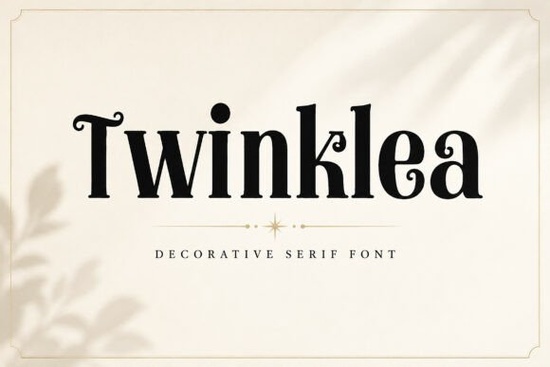
If you're looking for a font that adds a touch of elegance and personality to your designs, Twinklea Font is a great choice. This charming decorative serif font is designed to bring sophistication and creativity to any project, from branding and logos to wedding invitations and social media graphics.
Why Choose Twinklea Font for Your Design Projects?
Twinklea stands out with its graceful curves, playful swashes, and stylish vintage-inspired details. These elements combine to create a timeless aesthetic that feels both modern and classic. Whether you're working on a premium design or a feminine project, Twinklea can help you achieve the perfect balance between elegance and creativity.
Perfect for a Variety of Design Needs
One of the key strengths of Twinklea is its versatility. It works beautifully across a wide range of design applications, including:
- Branding and Logos: Add a unique and memorable touch to your brand identity.
- Packaging Design: Create eye-catching and elegant packaging that stands out.
- Editorial Layouts: Enhance the visual appeal of magazines, books, and other print materials.
- Social Media Graphics: Make your posts more engaging with stylish and sophisticated typography.
- Wedding Invitations: Craft beautiful and personalized invitations that set the tone for a special day.
- Boutique Labels: Give your products a high-end and professional look.
- Stylish Quotes: Create shareable and visually appealing quotes for your audience.
How Does Twinklea Compare to Other Serif Fonts?
While there are many serif fonts available, Twinklea offers a distinctive and artistic flair that sets it apart. Here’s how it compares to some other popular serif fonts:
- Rofina Font: Rofina is known for its clean and modern lines, making it a great choice for minimalist designs. If you prefer a more traditional and elegant look, Twinklea might be a better fit. Rofina Font
- Munnes Font: Munnes has a more geometric and structured feel, which can be ideal for contemporary and tech-focused projects. For a more artistic and vintage-inspired look, Twinklea is the way to go. Munnes Font
- Savage Roses Font: Savage Roses is a bold and dramatic serif font, perfect for creating a strong and edgy vibe. If you’re after a more graceful and refined style, Twinklea is a better choice. Savage Roses Font
- Orlington Font: Orlington is a classic and versatile serif font, suitable for a wide range of projects. However, if you want a font with more personality and artistic detail, Twinklea is a standout option. Orlington Font
- Office Typewritter Font: Office Typewritter has a retro and nostalgic feel, making it a good choice for vintage-themed designs. For a more elegant and modern twist, Twinklea is a fantastic alternative. Office Typewritter Font
Where Can I Use Twinklea Font?
Twinklea is incredibly versatile and can be used in a variety of design contexts. Here are some specific examples:
- Brand Identity: Use Twinklea to create a unique and memorable logo and brand collateral.
- Print Materials: Incorporate it into brochures, business cards, and other printed materials for a touch of elegance.
- Web Design: Add Twinklea to your website for a sophisticated and creative look.
- Product Packaging: Use it for labels and packaging to give your products a premium and professional appearance.
- Event Invitations: Design wedding, party, and event invitations that are both beautiful and personal.
- Social Media Graphics: Create eye-catching and engaging posts with Twinklea's stylish and sophisticated typography.
How to Get Started with Twinklea Font
To start using Twinklea in your designs, you can download it from Creative Fabrica. Once you have the font, you can easily integrate it into your design software, such as Adobe Illustrator, Photoshop, or Canva. Here are a few tips to get the most out of Twinklea:
- Experiment with Sizes and Styles: Try different sizes and styles to see what works best for your project. Twinklea's swashes and decorative elements can add a lot of character to your designs.
- Combine with Other Fonts: Pair Twinklea with a simpler sans-serif font to create a balanced and visually appealing design.
- Use for Key Elements: Highlight important parts of your design, such as headings or key messages, with Twinklea to draw attention and add a touch of elegance.
Final Thoughts
Twinklea Font is a wonderful choice for designers, crafters, and small businesses who want to add a touch of elegance and creativity to their projects. Its unique letterforms and artistic details make it a versatile and standout option for a wide range of design needs. Whether you're working on a new brand, a special event, or a creative project, Twinklea can help you achieve a timeless and sophisticated look.